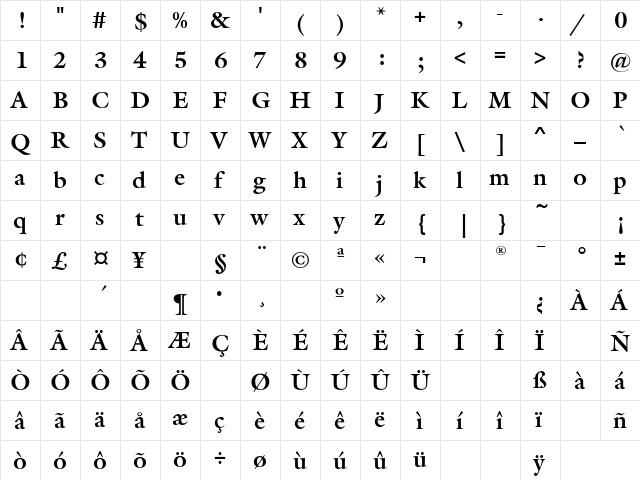
Galliard EF Bold Regular
Design Context for Galliard EF Bold Typeface
Galliard EF Bold takes a measured approach to typography — its balanced proportions and neutral character make it a reliable workhorse for both digital and print work. The heavy weight commands attention and anchors typographic hierarchies.